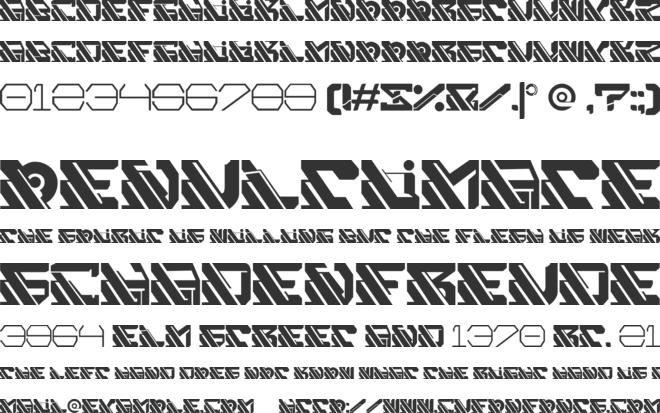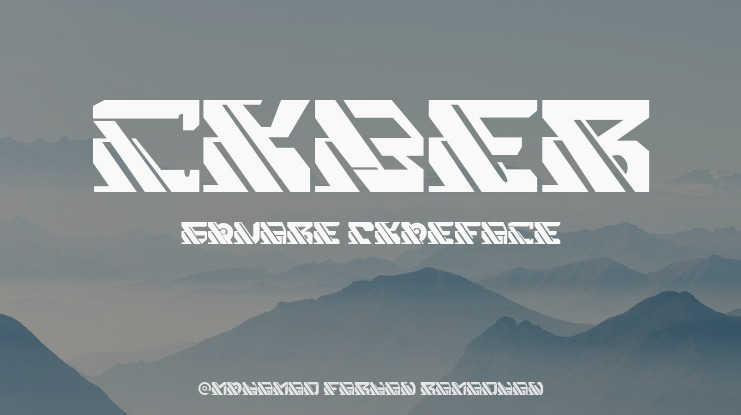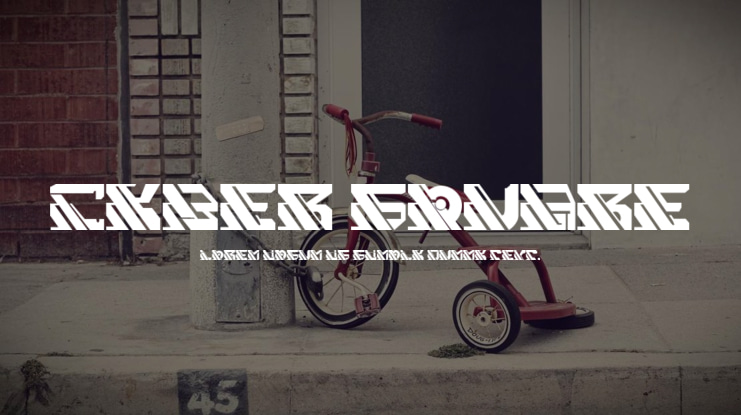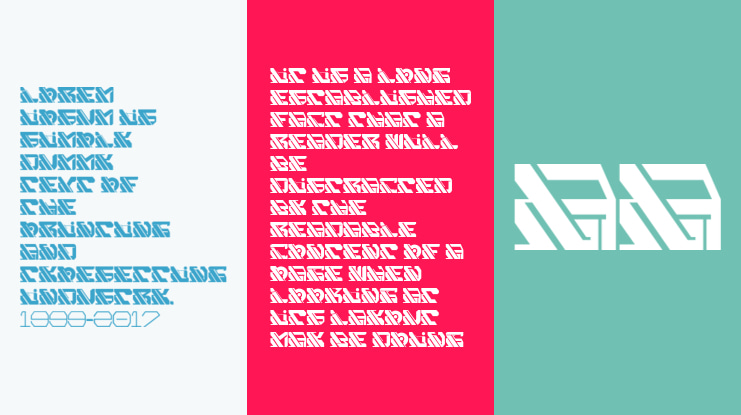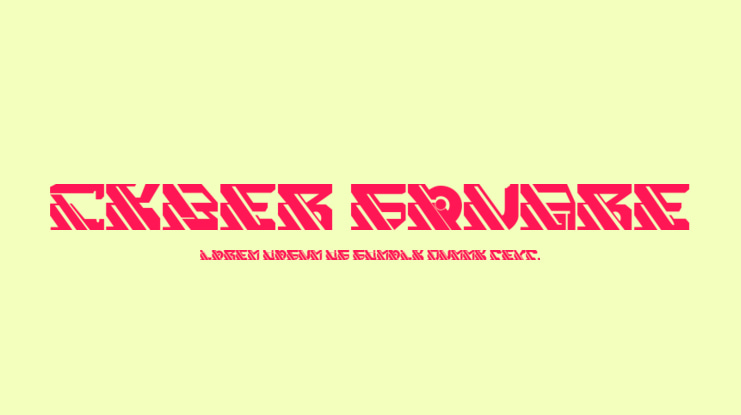
Cyber Square Font
Enter the world of Cyber Square, a futuristic font inspired by the world of technology and robotics. Its sleek and stylish design evokes a sense of innovation and progress, making it perfect for your next display, logotype, or movie display. Use it to add a touch of techno to your branding or elevate your art and craft projects to new heights. With Cyber Square, you'll be sure to leave a lasting impression on your audience and stand out in a world of mundane typography.By installing or using this font, you are agree to the Product Usage Agreement:This font is already FULL VERSION and ONLY for PERSONAL USE. NO COMMERCIAL USE ALLOWED!Here is the link to purchase COMMERCIAL LICENSE:https://fontbundles.net/mofr24-work/2560217-cyber-square-mecha-robot-machine-futuristic-gundamIf you need a CUSTOM LICENSE or CORPORATE LICENSE please contact us at:  donation are very appreciated. Our Paypal account for donation :https://paypal.me/avieoraPlease visit our store for more amazing fonts :https://www.creativefabrica.com/mofr24-studiohttps://fontbundles.net/mofr24-work